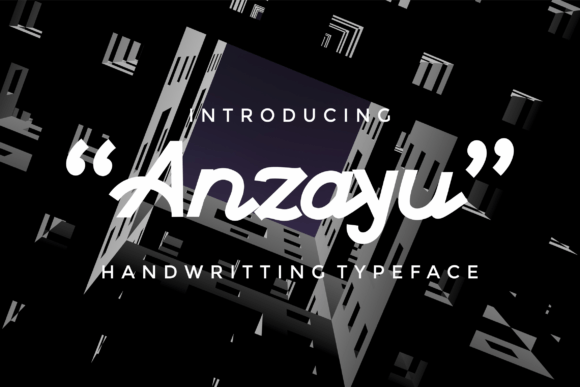
Step into the remarkable world of typography with Anzayu Font, a captivating Handwriting brush font designed to ignite your imagination and elevate your creative projects. This stunning font, hailing from the script font family, will cast a magical spell on your digital creations. With its meticulous design, Anzayu Font is the ultimate choice for designers seeking to make a bold statement.
Unleash your creativity and craft mesmerizing logos, eye-catching social media posts, unforgettable blog headers, and captivating digital invitations. Anzayu Font's elegant curves and dynamic strokes will transform your words into visual masterpieces that demand attention.
Immerse yourself in the expressive power of Anzayu Font, allowing your inner thoughts and emotions to flow freely onto the page. This versatile font will beautifully complement your presentations, brochures, flyers, and posters, adding a touch of sophistication and elegance to your designs.
Capture the attention of your audience with Anzayu Font's captivating design elements. Its striking Uppercase, Lowercase, and Numeric & symbols will add depth and texture to your digital art, ensuring that every creation stands out from the crowd.
Embrace the endless possibilities of Anzayu Font and embark on a creative journey like never before. Its unique character will add a touch of magic to your crafting experiences, leaving a lasting impression on your audience.